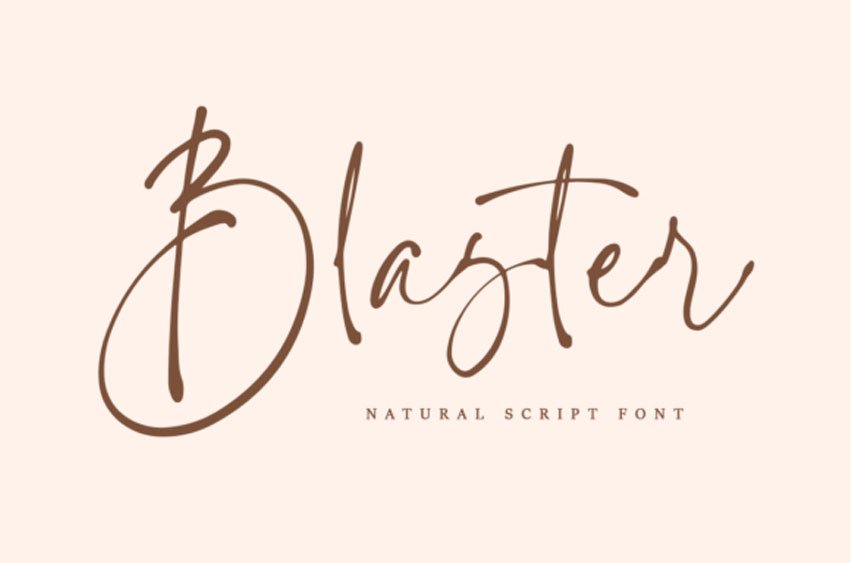
Blaster Font
Blaster Font is a handwritten font with natural strokes on each glyph.
You can use this font in all your designs such as logos, wedding invitations, mockups, etc. Use this font, and your design will be much more elegant!